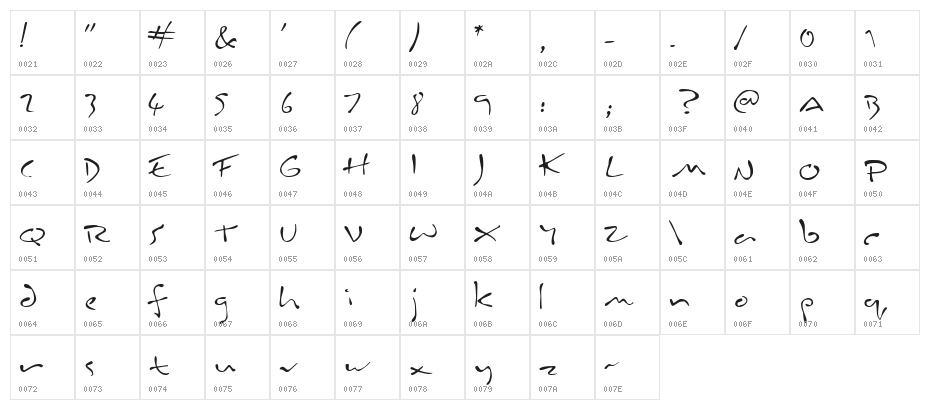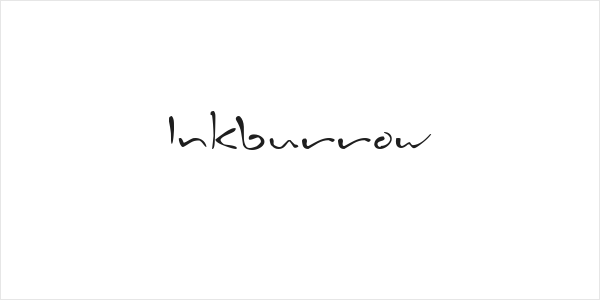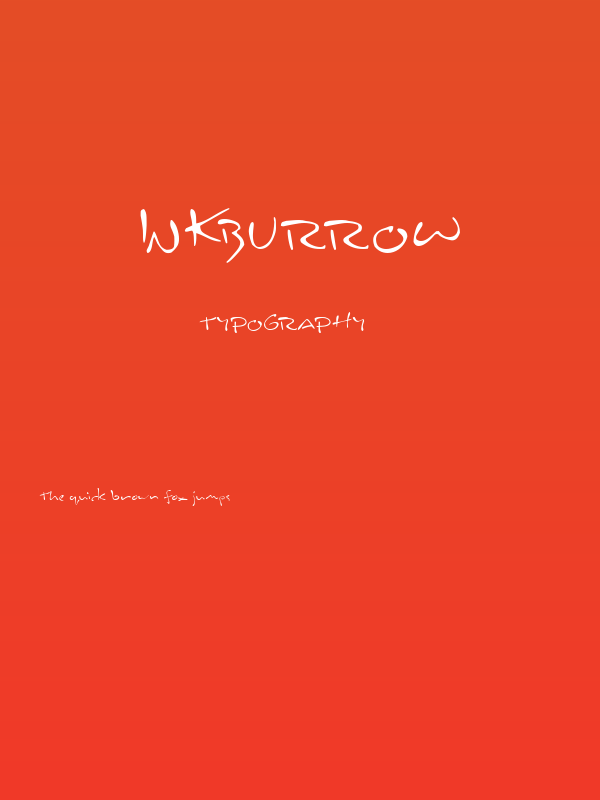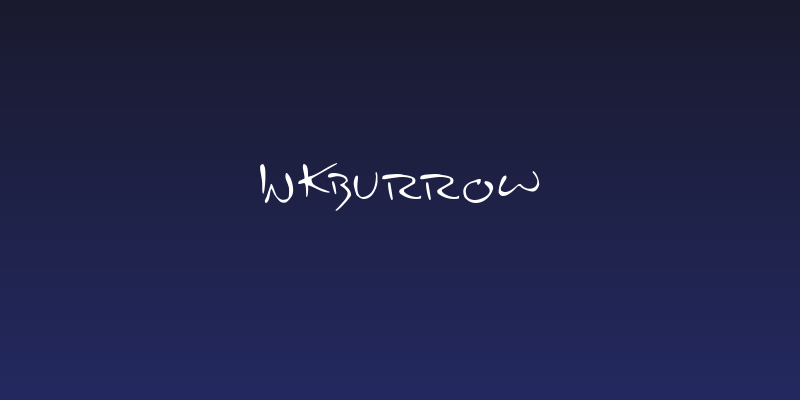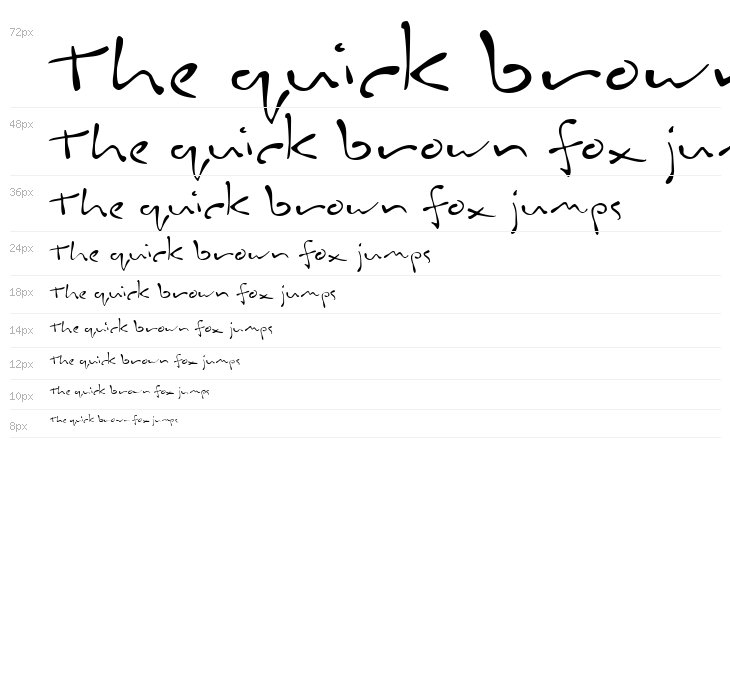
Inkburrow Font
Inkburrow Description
This font exudes a lively and spontaneous energy, characterized by its free-flowing, handwritten style. The letters are crafted with a casual flair, featuring irregular strokes and varying thickness that mimic the natural flow of ink on paper. Each character is distinct, with playful curves and loops that add a sense of movement and personality. The uppercase letters maintain a consistent height, while the lowercase letters exhibit a more varied baseline, enhancing the informal and dynamic appearance. Numbers and special characters follow the same expressive style, making this font ideal for creative and artistic projects.
| Overall Style | Casual, Artistic |
| Use Case | Logos, Creative projects, Personal invitations |
| Proposed Projects | Ideal for greeting cards, personal invitations, artistic posters, and creative branding. |